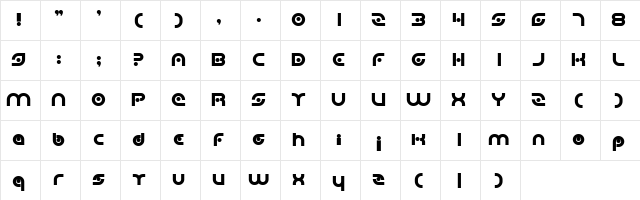
Planetary Orbiter Bold
Design Context for Planetary Orbiter Typeface
Planetary Orbiter takes a measured approach to typography — its balanced proportions and neutral character make it a reliable workhorse for both digital and print work. Its bold stroke weight gives it real presence on the page.